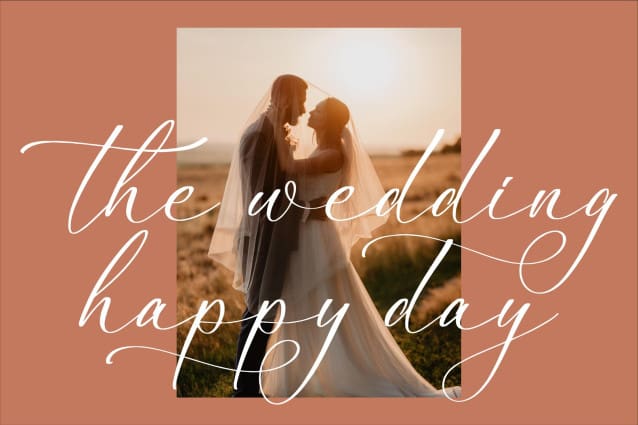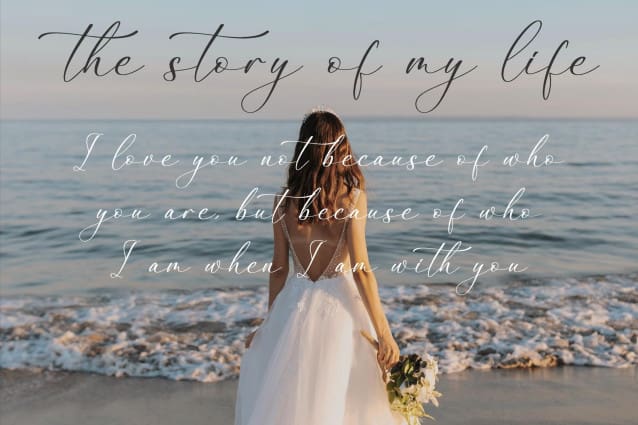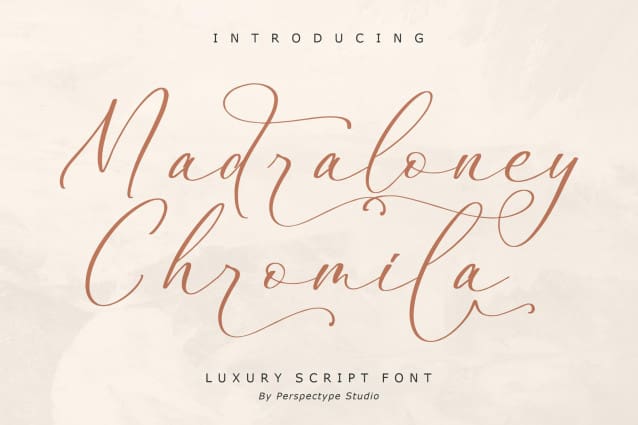
Madraloney Chromila Font
Madraloney Chromila – Luxury Script Font , from Perspectype Studio, suitable for any projects such as: logos, branding projects, homeware designs, product packaging, mugs, quotes, posters, shopping bags, t-shirts, book covers, name card, invitation cards, greeting cards, label, photography, watermark, special events, and all your other lovely projects that need a beautiful script taste.